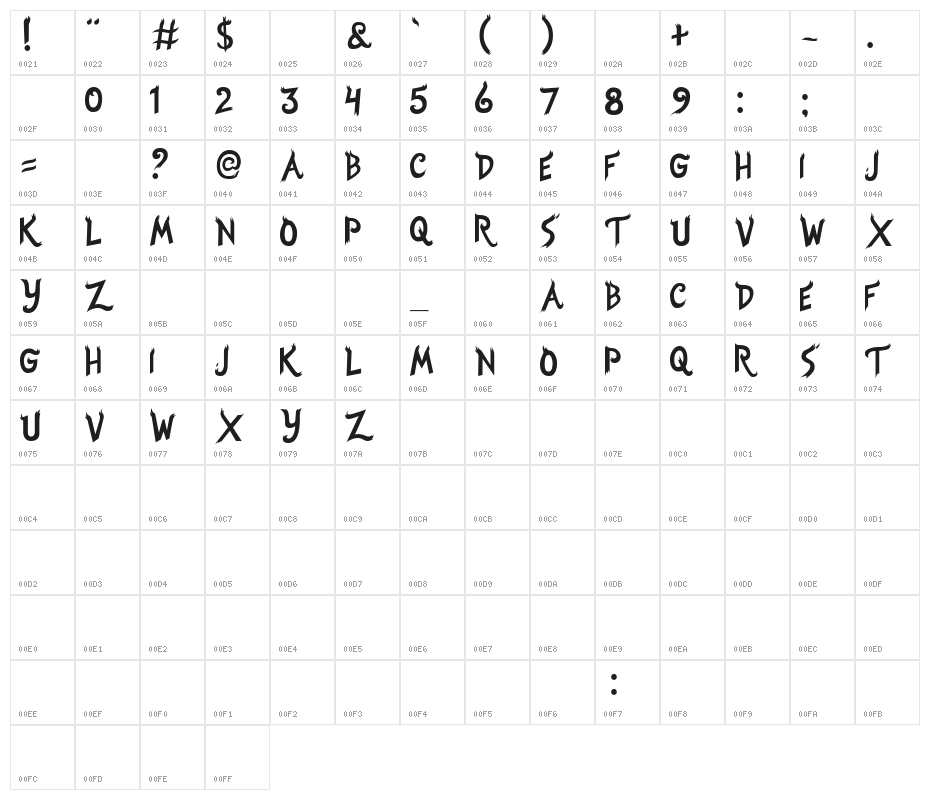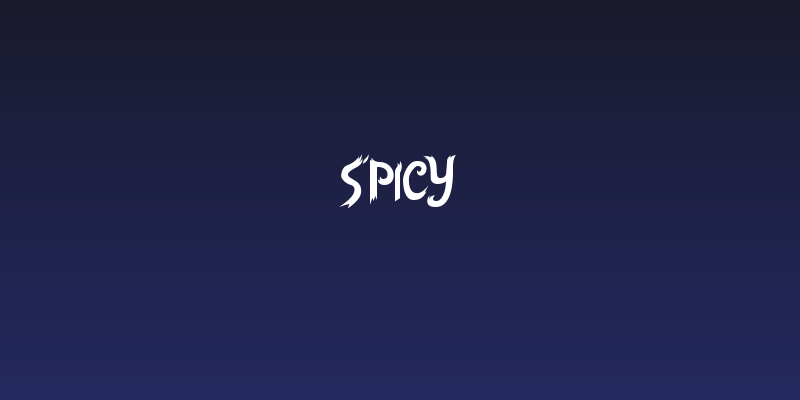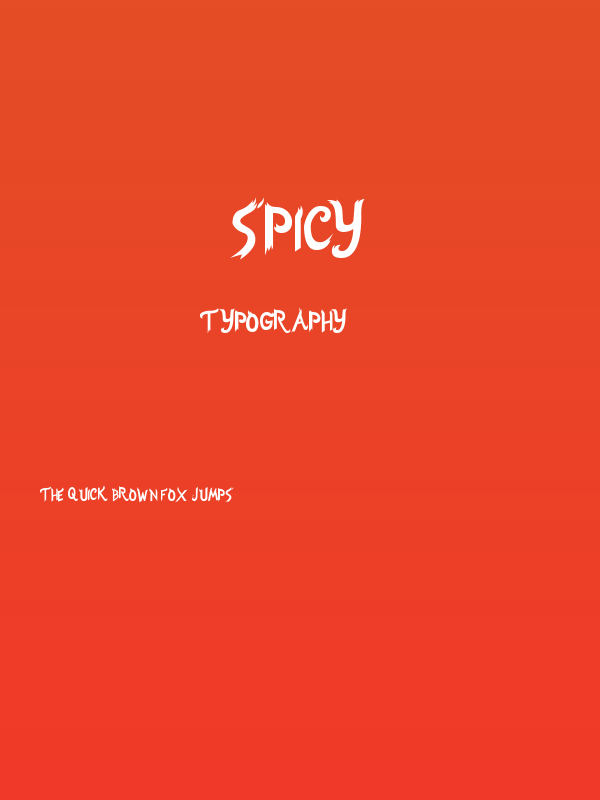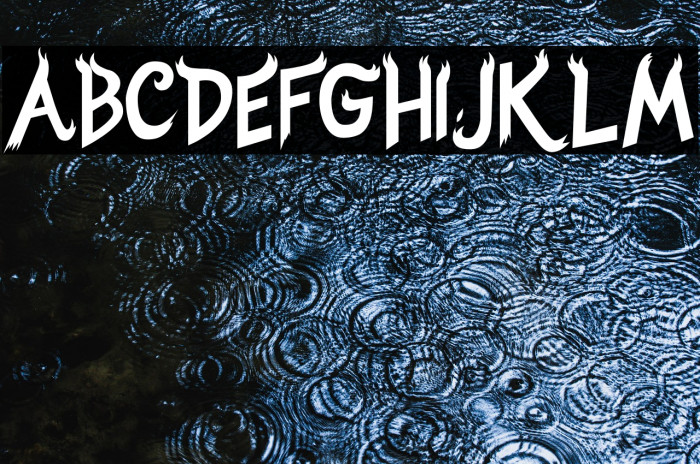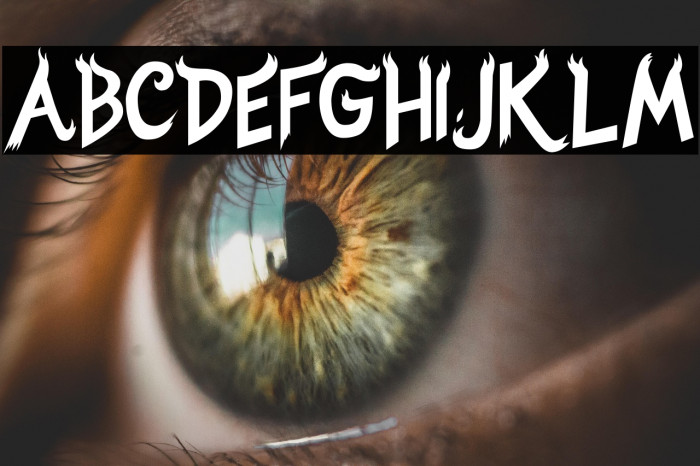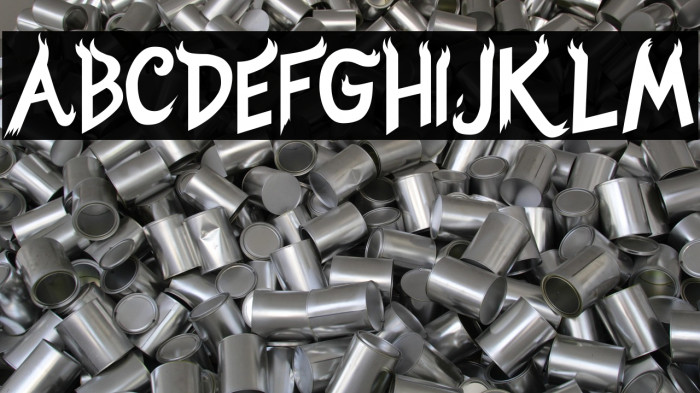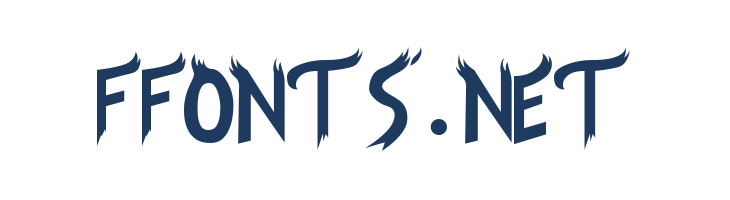
Spicy Font
Spicy Description
This font features a bold, edgy design with sharp, angular strokes that give it a dynamic and energetic appearance. The characters have a slightly irregular form, adding a sense of movement and excitement. The uppercase and lowercase letters maintain a consistent style, with exaggerated serifs and pointed ends that create a striking visual impact. The numerals and special characters follow the same aesthetic, ensuring uniformity across all glyphs. This font is ideal for projects that require a bold statement or a sense of urgency and intensity.
| Overall Style | Modern, Energetic |
| Proposed Projects | Perfect for posters, music album covers, video game titles, and branding that requires a bold and energetic look. |